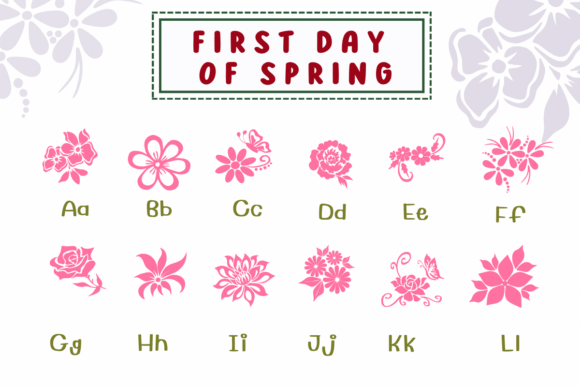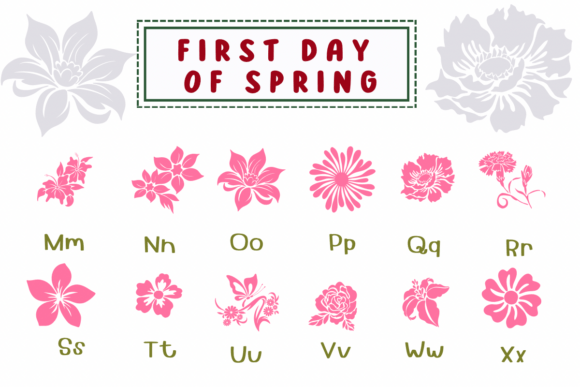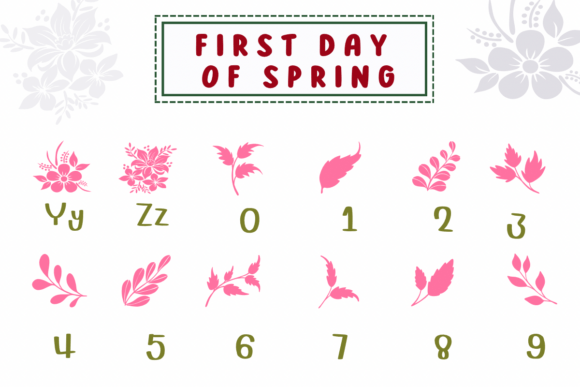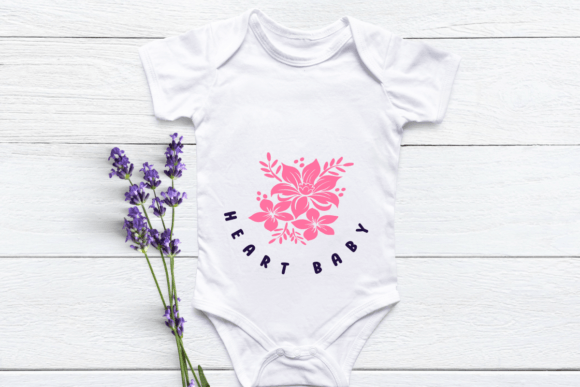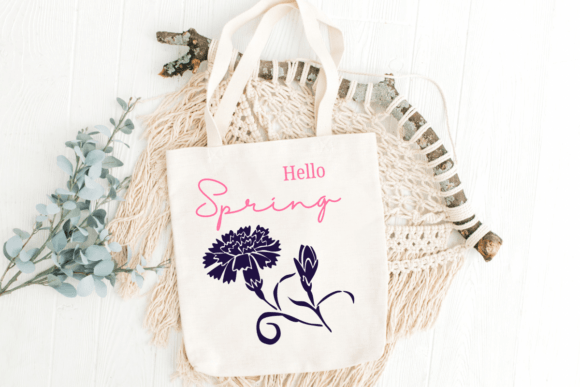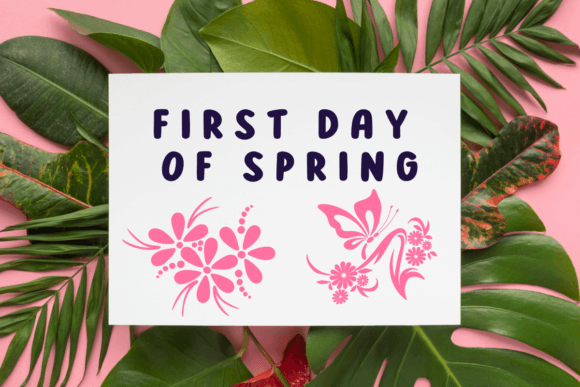
Introduction to First Day of Spring Font Font
Fonts play a crucial role in design, and the First Day of Spring Font font is a typeface that brings both character and versatility to any project. Whether you’re working on a branding project, a website, or a print design, the First Day of Spring Font font offers a unique style that can elevate your work.
First Day of Spring is a dingbats font with a floral theme.
This font can enhance your creative projects such as wedding invitations, DIY, crafts, decorations, logos, and many other creative ideas .
Key Features of First Day of Spring Font Font
Why Choose First Day of Spring Font Font?
The First Day of Spring Font font is more than just a typeface – it’s a design tool that helps you communicate your message with style and clarity. Its unique character set and versatile design make it suitable for a wide range of applications, from elegant invitations to bold headlines.
With its carefully crafted letterforms and balanced proportions, the First Day of Spring Font font ensures readability and visual appeal across all mediums.
What makes First Day of Spring Font font special?
The First Day of Spring Font font stands out with its unique design, exceptional readability, and versatility across various design applications.